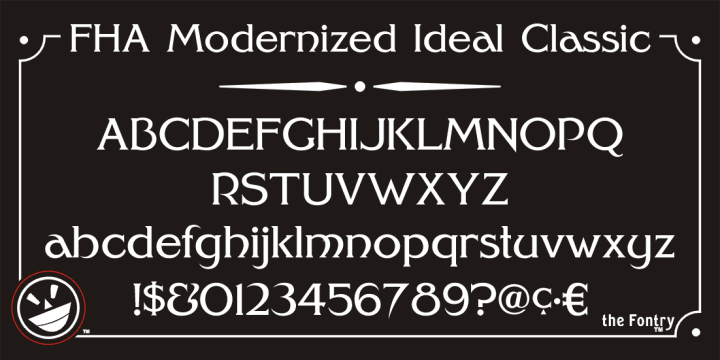
Font name: | FHA Modernized Ideal ClassicNC |
Author: | Fontry |
Note by Fontry | |
FHA Modernized Ideal Classic is based on the lettering example in Frank H. Atkinson’s book Atkinson Sign Painting was published in 1909. The commercial version of this font is available from MyFonts at: http://new.myfonts.com/fonts/fontry-west/fha-modernized-ideal-classic/ To find other Fontry/Fontry West products visit www.thefontry.com or key word search fontry at MyFonts.com or Fonts.com. Thank You from the Fontry/Fontry West. |